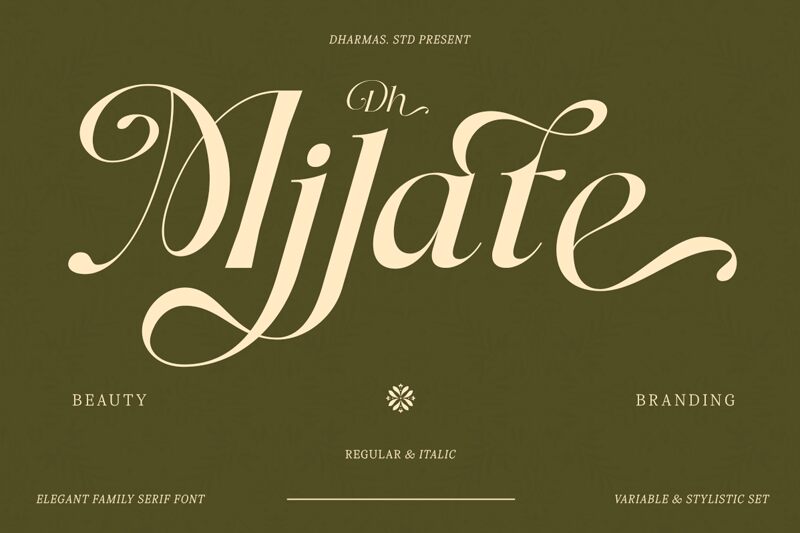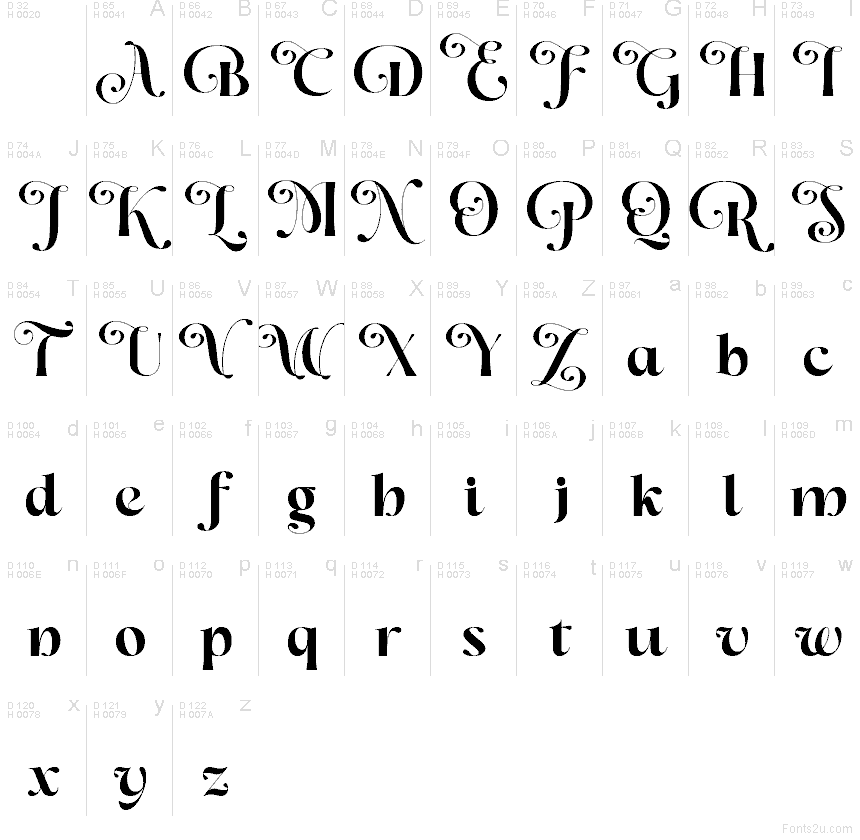
Dh Milate DEMO Extra Bold
Dh Milate Extra Bold font by Dharmas Foundry is a free curly serif font that turns every word into an ornament. Heavy, inky strokes bloom into lush swirls and dramatic curls, while the Dh Milate family rhythm keeps it readable instead of chaotic. It feels like vintage perfume labels and old theater marquees: rich, glamorous, and just a bit extravagant.
Using Dh Milate Extra Bold, short phrases and names instantly become logos in their own right. This free font shines on wedding invitations, boutique branding, luxury packaging, magazine covers, posters, and bold social graphics. Let it take center stage at larger sizes, then pair it with a clean geometric sans serif for body text to keep layouts grounded and elegant.